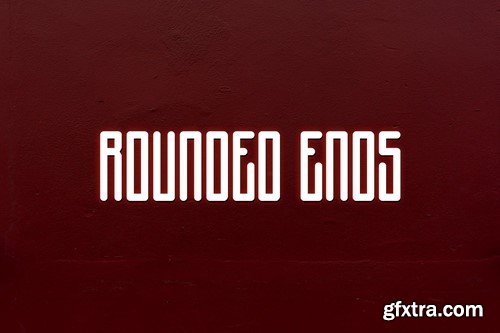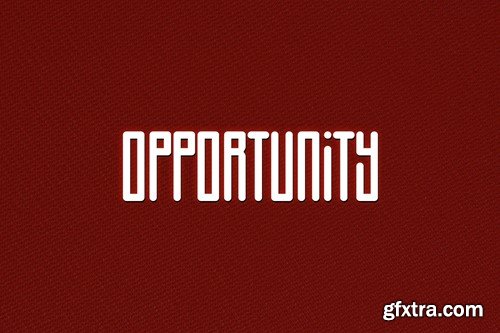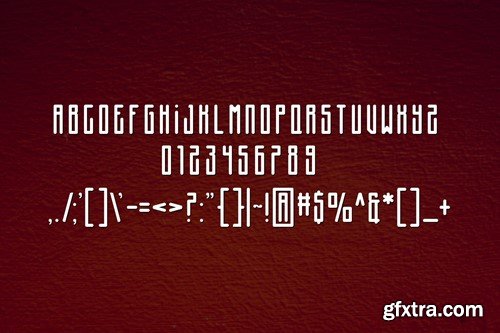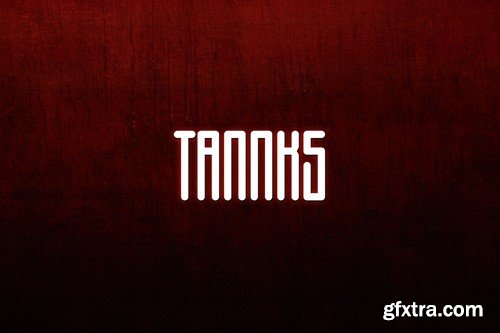
Rounded Ends Font 734WFCK
Rounded Ends Font
Introducing our new product Rounded Ends Font, Modern Font
Rounded Ends Font is an elegant and authentic display font.